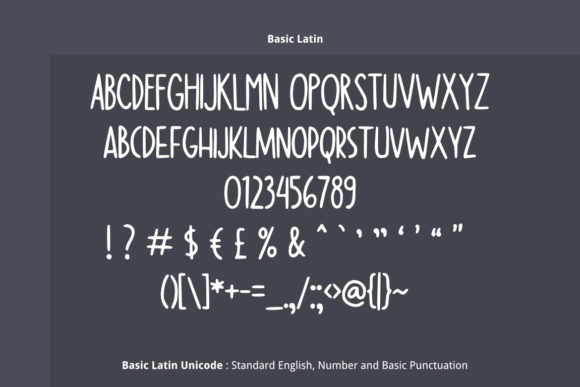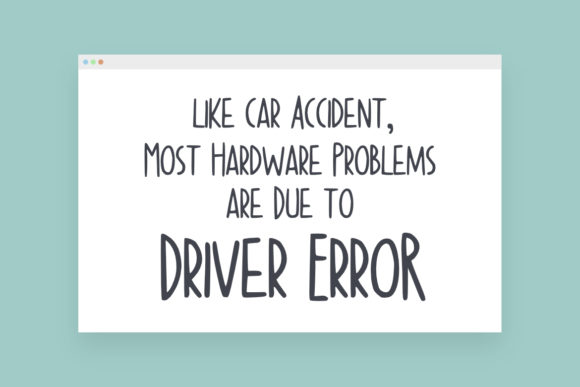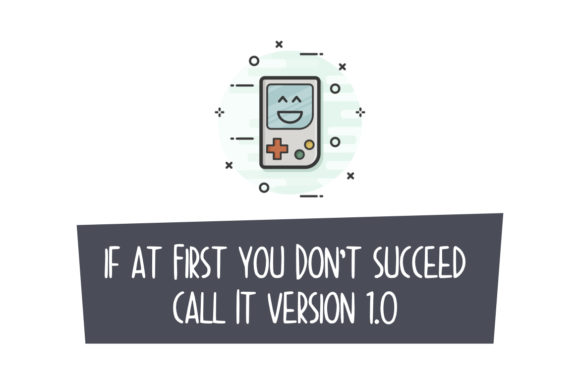
Introduction to Kapslock Font
Have you ever stared at a blank canvas, waiting for inspiration to strike? It’s a moment we’ve all been in – the blank page staring back, taunting us to create something amazing. But then, it happens. A spark of creativity ignites, and the ideas start flowing. For designers, this moment is the key to unlocking a world of possibilities. And when it comes to adding the perfect finishing touch, a high-quality font like the Kapslock Font can make all the difference.
With its clean and quirky design, the Kapslock Font is the perfect fit for logos, branding, social media, and crafty DIY projects. Its transparent background and versatile style make it a valuable design resource for creatives looking to add a touch of personality to their work. Whether you’re working on a free download or a paid project, this font is sure to bring a smile to your face and a unique twist to your design.
Key Features of Kapslock Font
- High-quality design for creative projects, featuring a unique and modern aesthetic.
- Transparent background, making it easy to use in various design scenarios and backgrounds.
- Includes multiple font sizes and resolutions, allowing for flexibility in design applications.
- Perfect for designers looking for a high-quality, free design resource to enhance their creative project.
- Unique characteristics, such as bold and italic styles, make it a versatile choice for various design needs.
Honest Review: Kapslock Font
I recently stumbled upon the Kapslock Font and I’m excited to share my thoughts on this design resource. As a designer, I’m always on the lookout for high-quality fonts that can elevate my creative projects.
The Kapslock Font has a unique, modern feel to it that I think would be perfect for anything from branding to editorial design. One of the standout features of this font is its transparent background, which makes it incredibly versatile and easy to use.
- High-quality design with a unique, modern feel ✨
- Transparent background for easy use and versatility ✨
- Only a few styles are available, which may limit its use in certain projects ⚠️
- Not as extensive a character set as some other fonts, which could be a issue for more complex projects ⚠️
Overall, I think the Kapslock Font is a solid addition to any designer’s toolkit. While it may have some limitations, its unique style and versatility make it a great resource for a wide range of creative projects.
Tips for Getting the Most Out of Kapslock Font
For the best results, use Kapslock Font in conjunction with a high-quality design resource, such as a professional image or a creative project template. Experiment with different font sizes, colors, and styles to achieve a unique look.
Kapslock Font is perfect for creative projects, such as infographics, brochures, and business cards. Its unique design and transparent background make it a valuable design resource for any project.